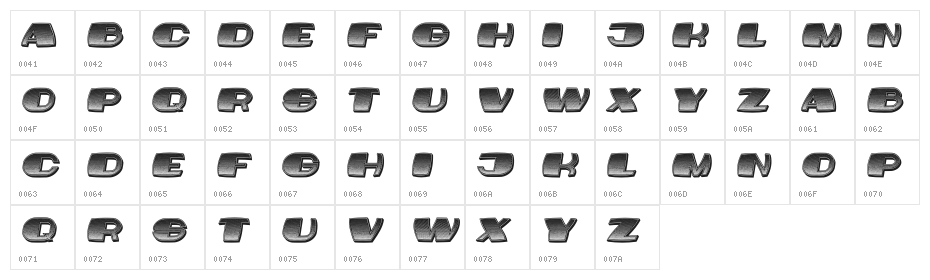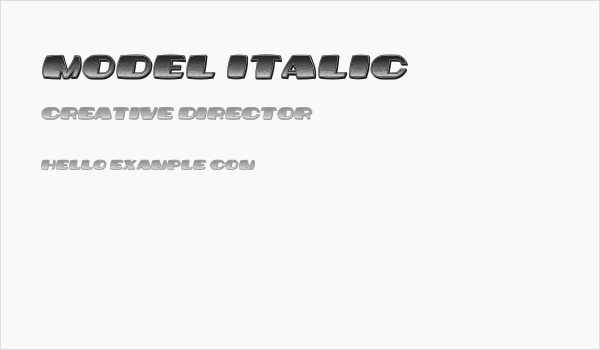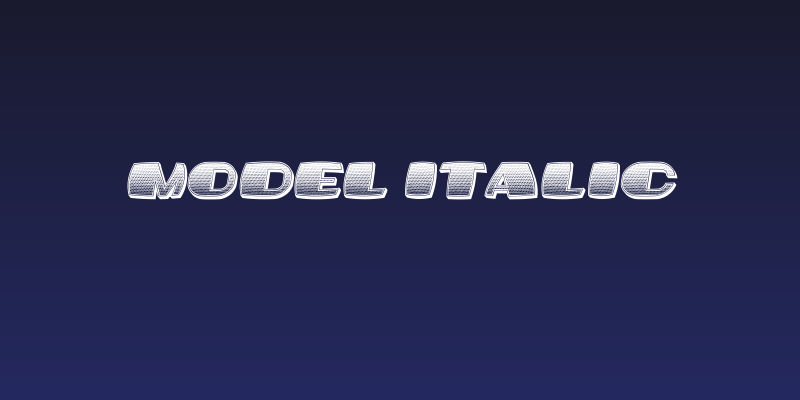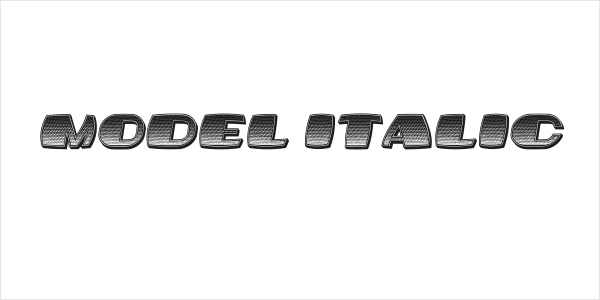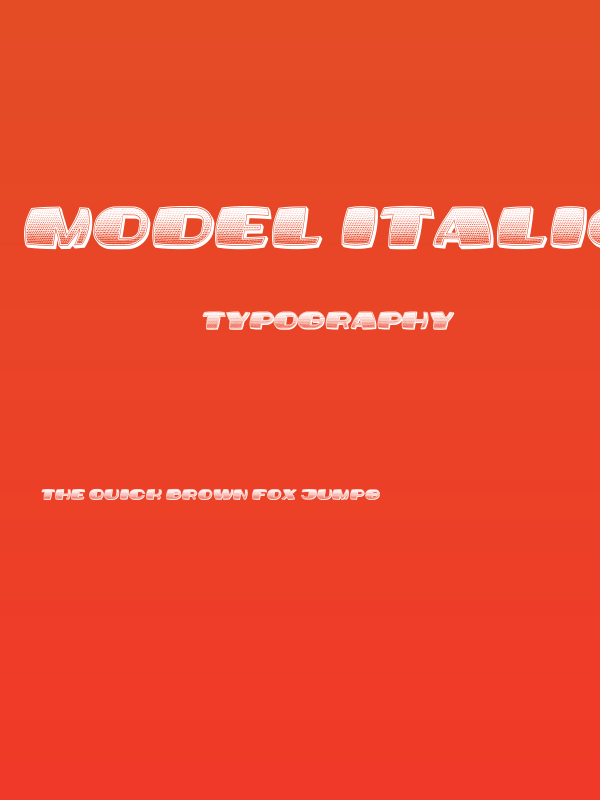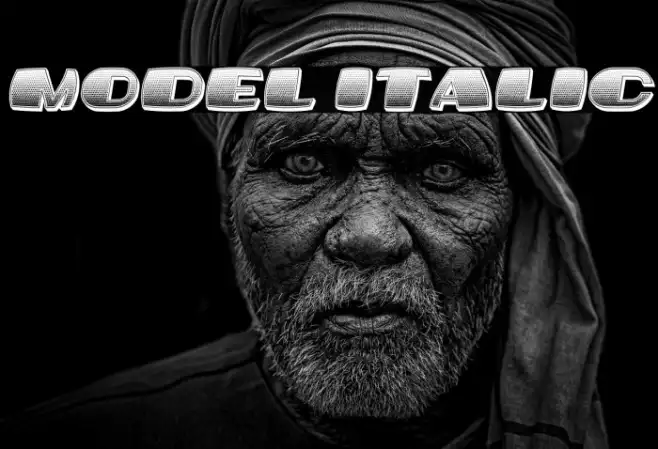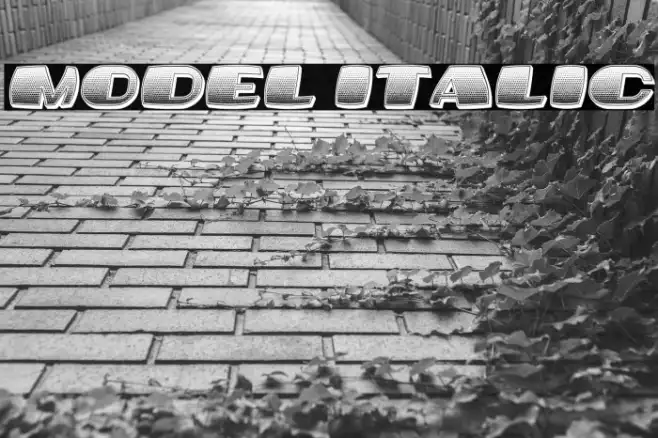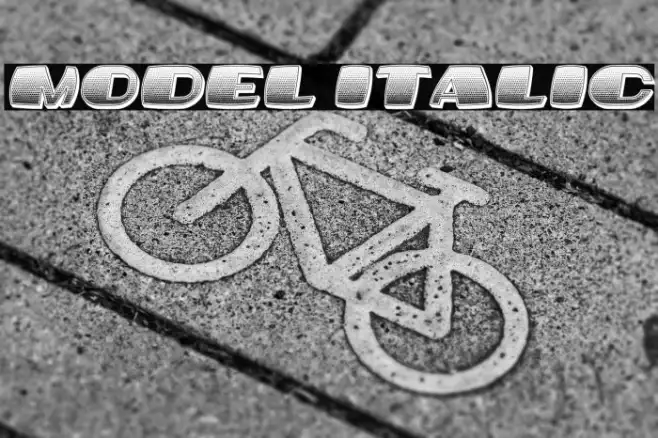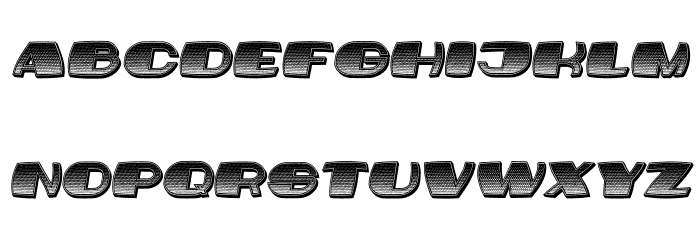
Model Italic Font
Model Italic Description
This font features a bold and dynamic style with a strong italic slant, giving it a sense of motion and energy. The characters are thick and robust, with a textured pattern that adds depth and a unique visual interest. The uppercase letters are particularly striking, with a futuristic and industrial feel. The font's design incorporates a slight three-dimensional effect, enhancing its bold appearance. The overall aesthetic is modern and eye-catching, making it suitable for projects that require a standout typeface.
| Proposed Projects | Ideal for sports branding, automotive designs, futuristic posters, and dynamic logos. |